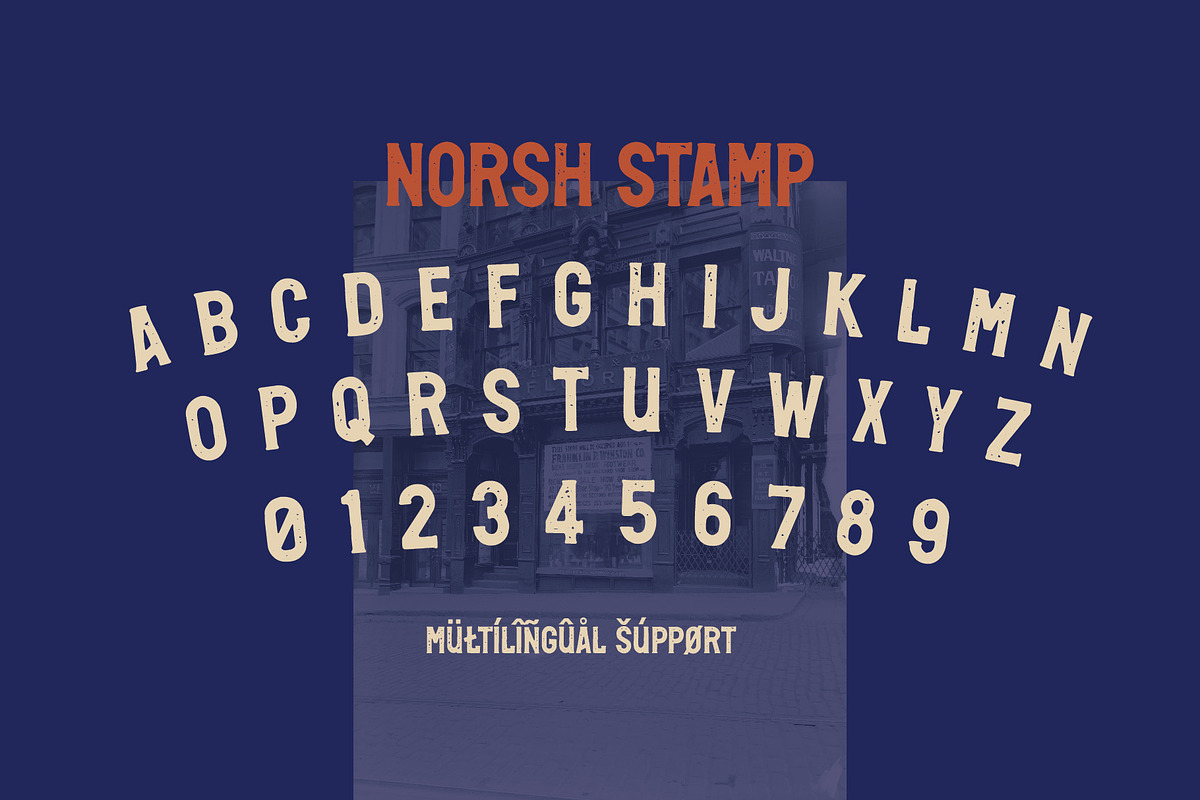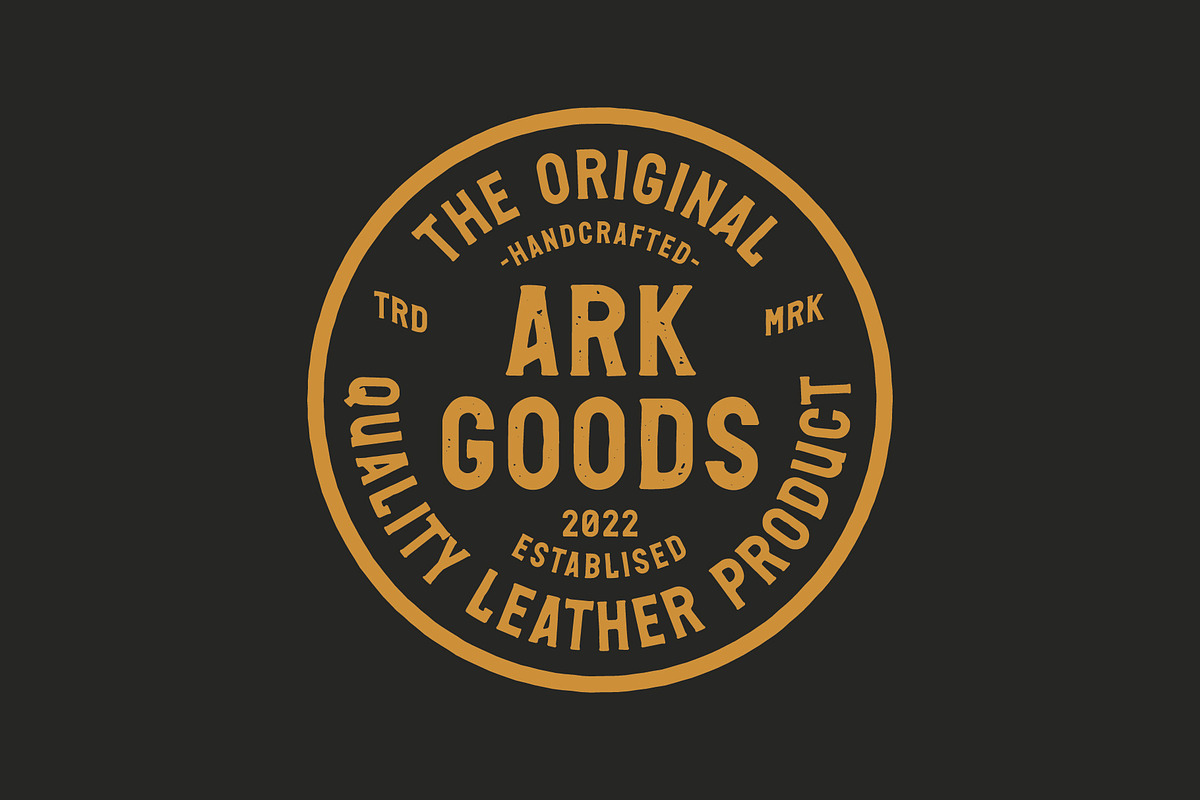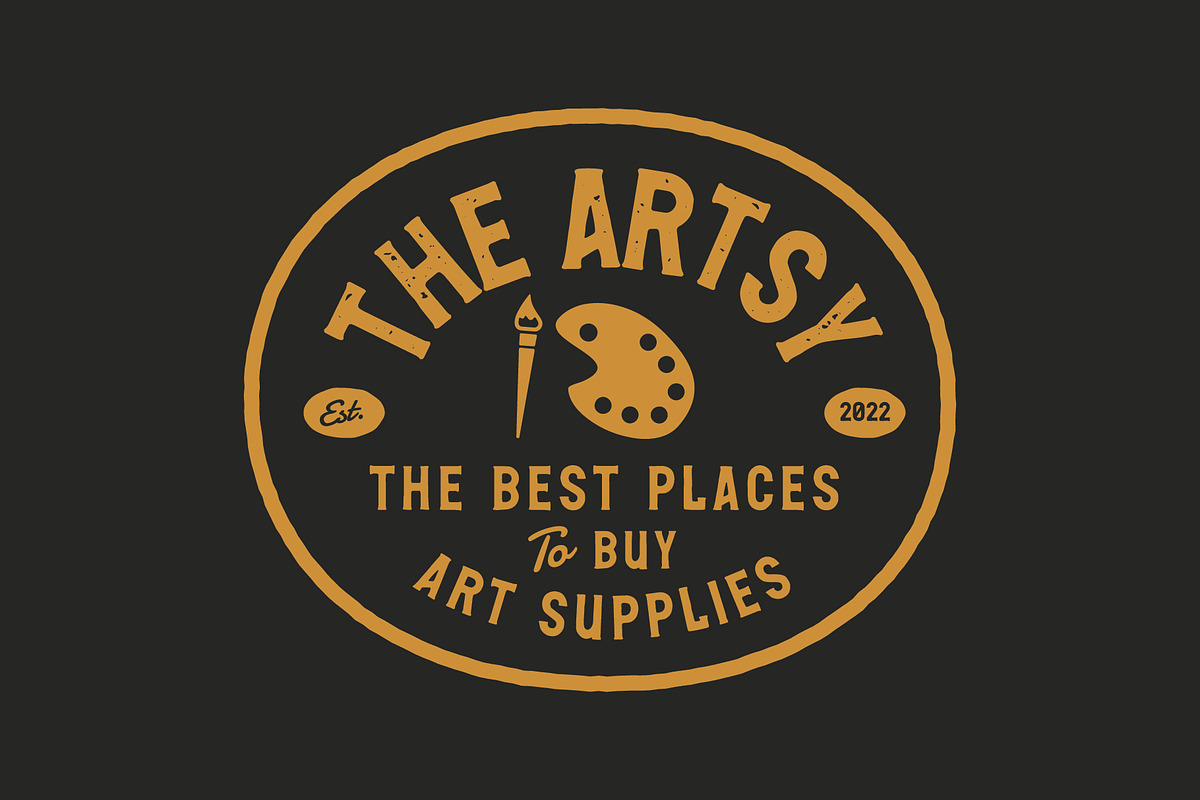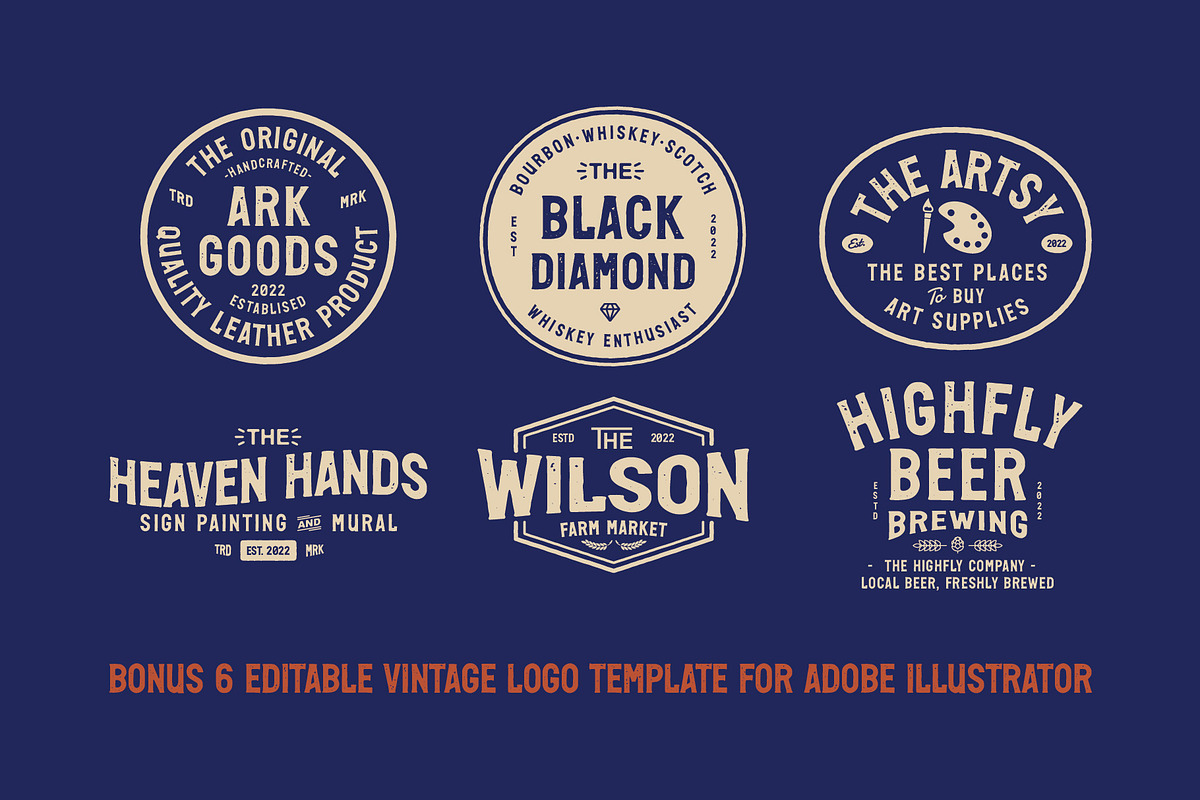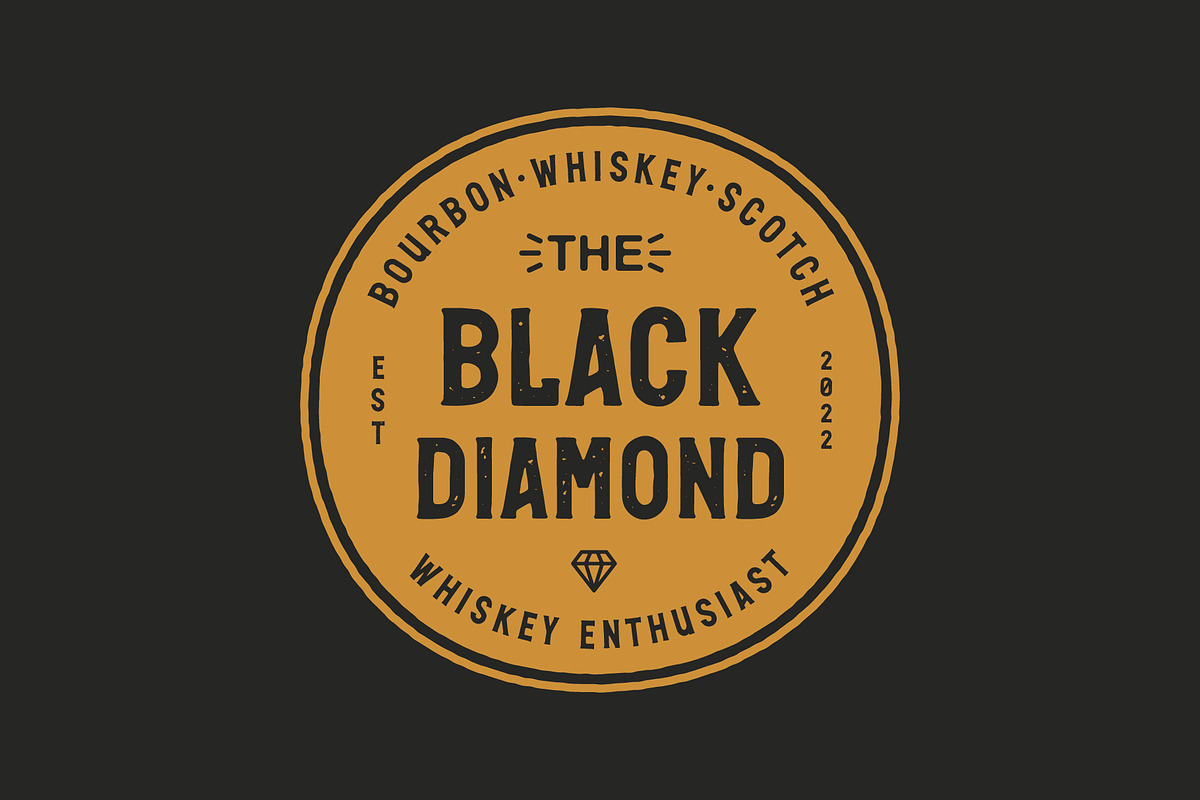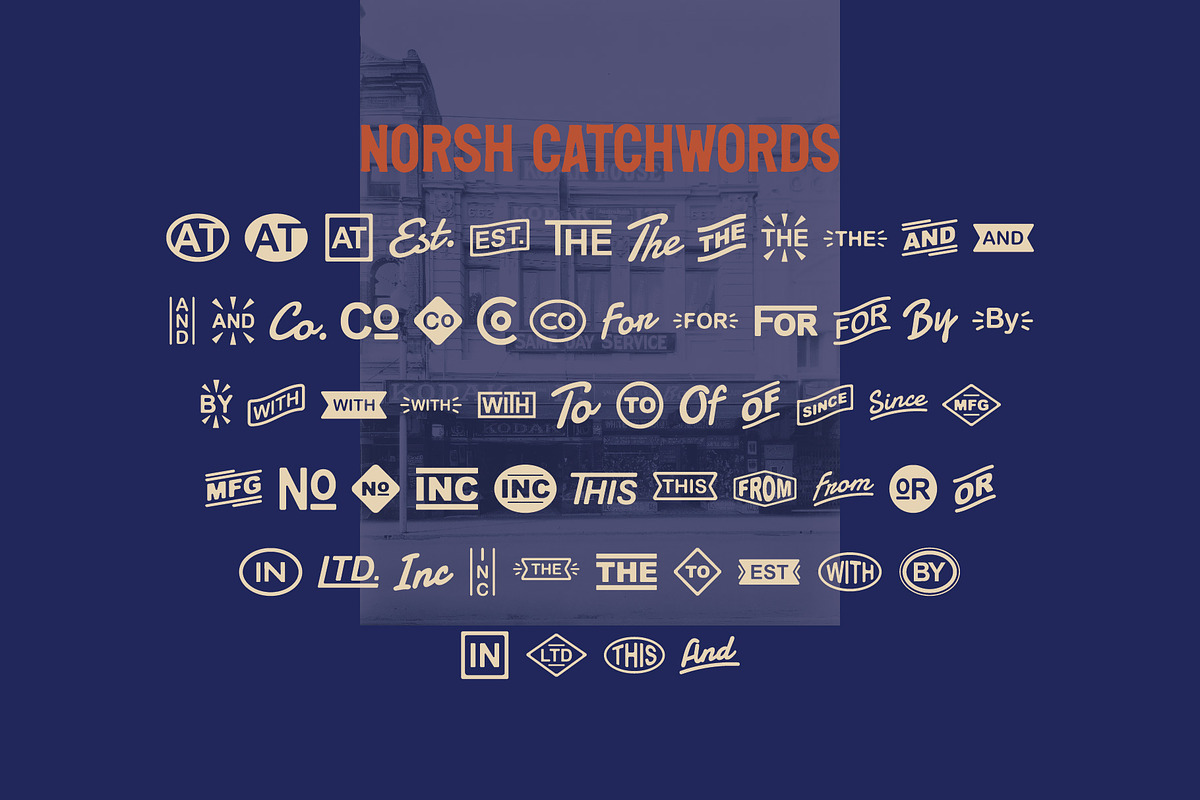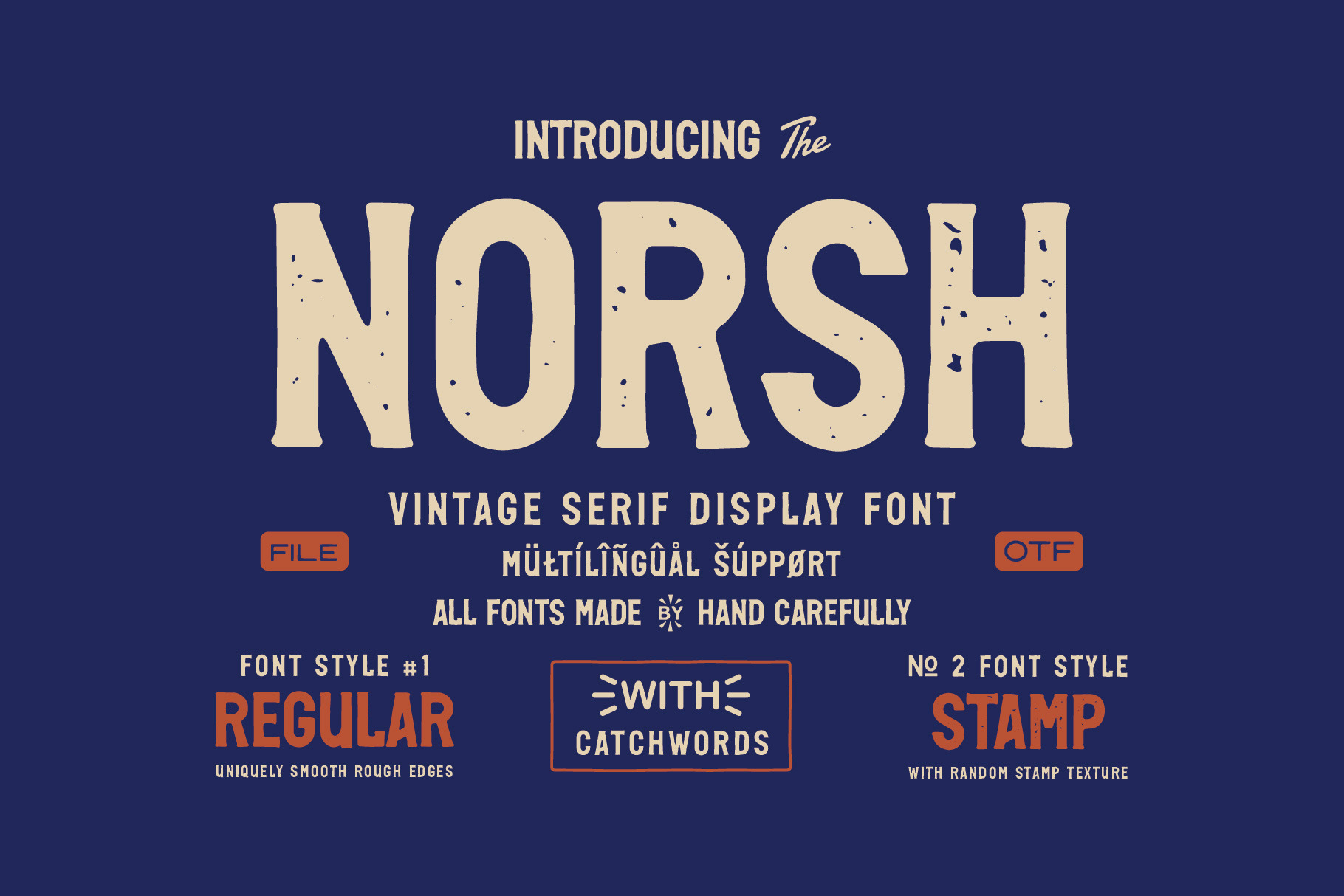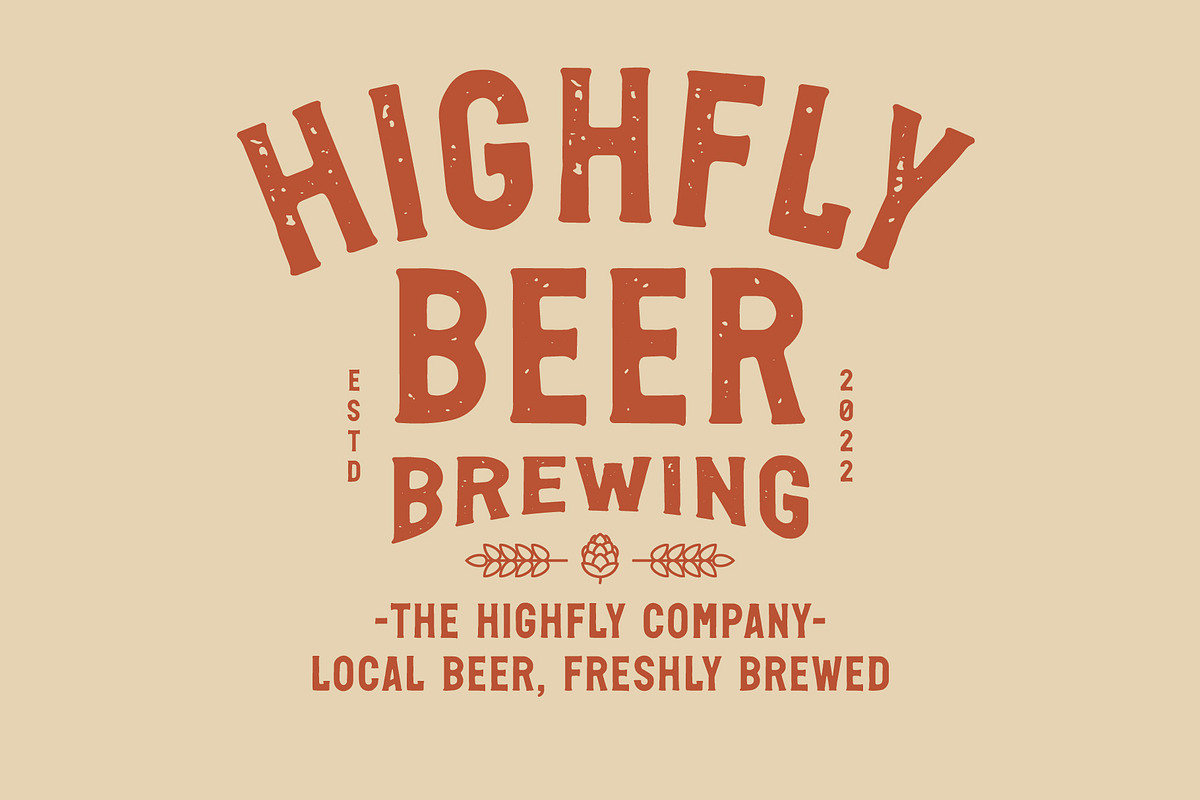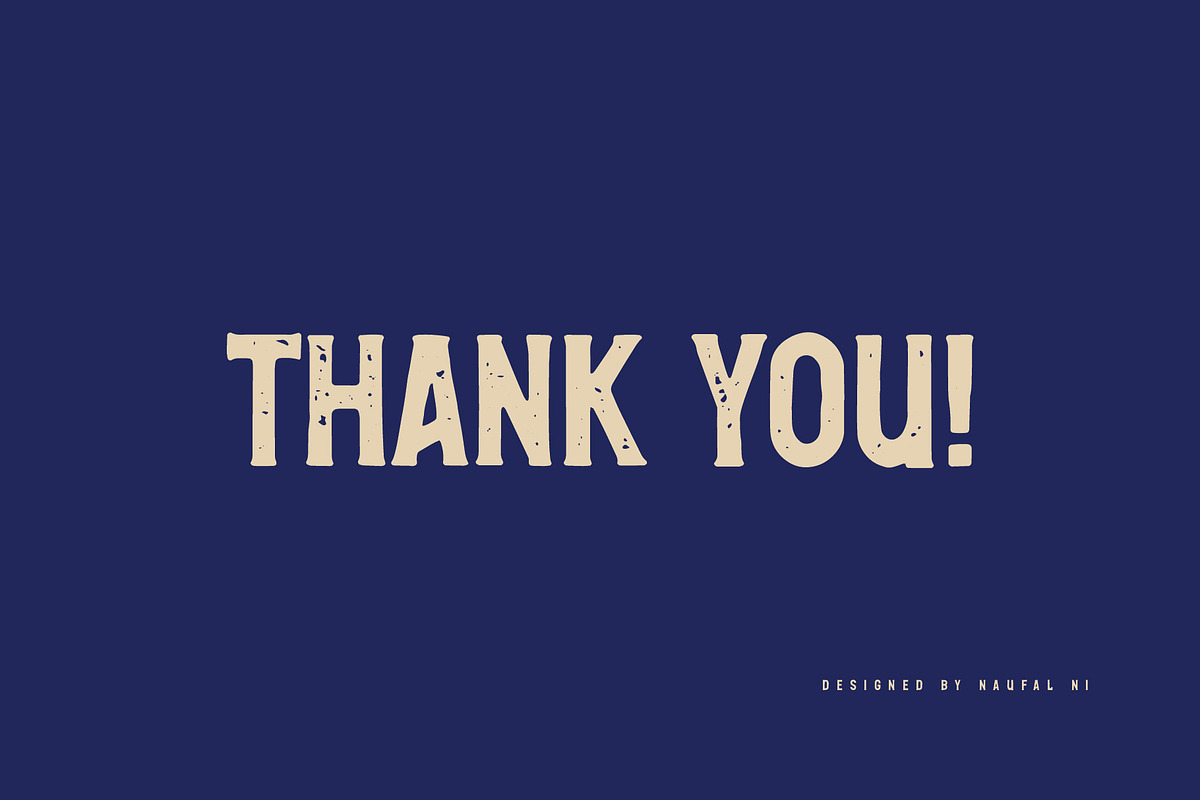
NORSH - A Vintage Display Font
Introducing NORSH
This font is very suitable as a display font as well as a font for book cover, because it has a high readability. NORSH very basic looking handmade font, easy to match with various designs
NORSH perfect for making logo designs, badges, packaging, posters, t-shirt designs and more. Hope you like this font!
- Norsh - Regular
- Norsh - Stamp
- Norsh - Catchwords
A beautiful vintage font, and the little phrase buttons really set this bundle apart from other similar fonts.